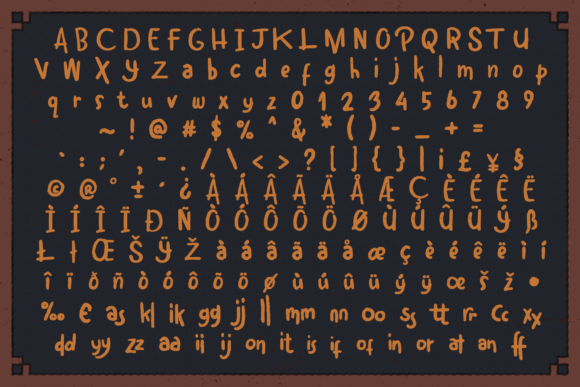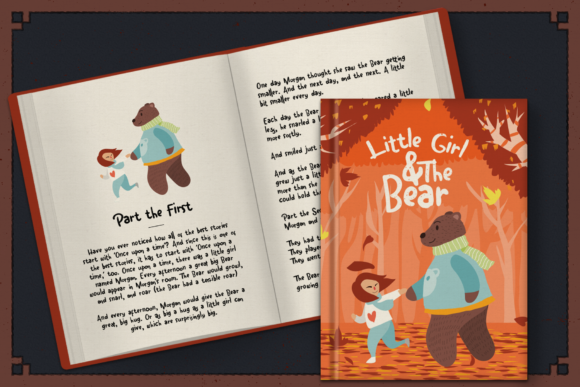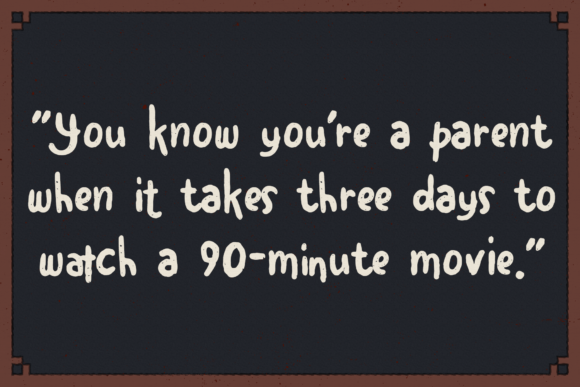
Introducing Goodkids Font: The Ultimate Display Font for Fun and Creativity
Are you a designer, crafter, or educator looking for a font that embodies the spirit of fun, quirkiness, and authenticity? Look no further than Goodkids Font! This enchanting display font is designed to turn any creative idea into a true standout, making it perfect for kids and school projects, as well as any design project that requires a playful touch.
The Personality of Goodkids Font
Goodkids Font is all about embracing the joy and playfulness of childhood. Its childlike charm and whimsical feel make it an ideal choice for designers and crafters who want to add a touch of personality to their work. With Goodkids Font, you can add a dash of quirkiness to your designs, making them truly unique and eye-catching.
Key Features of Goodkids Font
- Fun and Playful: Goodkids Font is designed to bring a smile to your face. Its playful and carefree feel makes it perfect for kids and school projects, as well as any design project that requires a lighthearted touch.
- Quirky and Authentic: Goodkids Font is all about embracing individuality and self-expression. Its quirky and authentic feel makes it perfect for designers and crafters who want to add a touch of personality to their work.
- Highly Versatile: Goodkids Font is a highly versatile display font that can be used for a wide range of design projects, from posters and flyers to invitations and crafts.
- Easy to Read: Despite its playful feel, Goodkids Font is easy to read, making it perfect for use in titles, headings, and other display text.
Use Cases for Goodkids Font
Goodkids Font is perfect for a wide range of design projects, including:
- Kids and school projects, such as posters, flyers, and presentations.
- Crafts, such as handmade cards, gift tags, and scrapbooking.
- Design projects that require a playful touch, such as branding, packaging, and advertising.
- Digital projects, such as social media graphics, blog posts, and website headers.
Tips for Using Goodkids Font
Here are a few tips for getting the most out of Goodkids Font:
- Use it sparingly: Goodkids Font is a display font, so use it sparingly to add emphasis and personality to your designs.
- Pair it with other fonts: Goodkids Font pairs well with other fonts, so don’t be afraid to experiment with different combinations.
- Experiment with colors: Goodkids Font looks great in a wide range of colors, so don’t be afraid to experiment and find the perfect hue for your design.
Goodkids Font is a unique and versatile display font that embodies the spirit of fun, quirkiness, and authenticity. Its childlike charm and playful feel make it perfect for kids and school projects, as well as any design project that requires a lighthearted touch. With its highly versatile design and easy-to-read text, Goodkids Font is sure to become a favorite among designers, crafters, and educators.